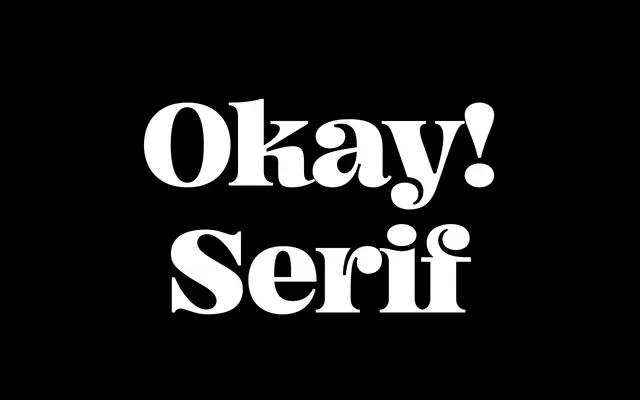
Okay Serif specimen from Gradient
A single-weight display serif with broad multilingual coverage and an expressive, high-contrast personality suited to poster and editorial work.
Available in Bold and Bold Italic only, this display serif carries a deliberately loud character, with the foundry citing tropical warmth alongside a heavy attitude. Despite its limited weight range, the design extends to Cyrillic and Greek, making it more broadly useful than many display-only releases. Suited to headlines, packaging and short editorial copy where character takes precedence over versatility.
A single-weight display serif with heavy, expressive forms designed primarily for large-scale typesetting rather than extended text. The page describes it as loud and attitude-driven, placing it firmly in the display category.